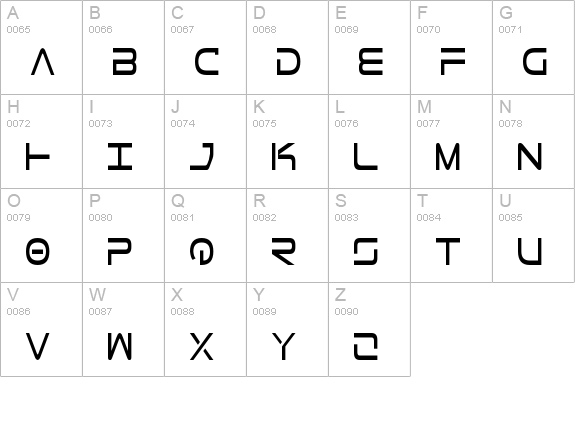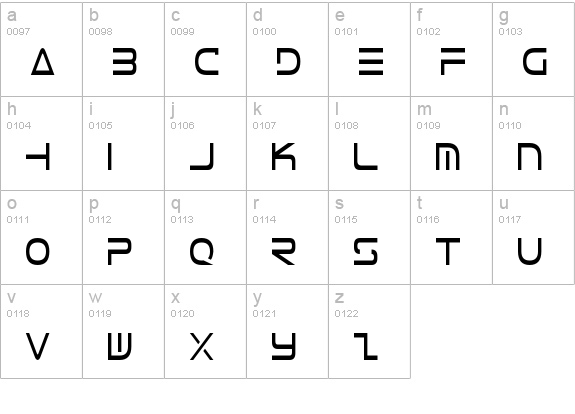
Tele-Marines Condensed is a distinctive, condensed-width variant in the Tele typeface family \xE2\x80\x94 well suited to design and typography projects.
Tele-Marines Condensed is a sleek and stylish font that brings a touch of professionalism and sophistication to any project. Its condensed design allows for maximum impact, making it perfect for headlines, titles, and logos. The clean lines and sharp edges of this font give it a modern and contemporary look that is sure to catch the eye. What sets Tele-Marines Condensed apart is that it is not only visually stunning, but it is also free to use! That's right, this amazing font is freely available to download at FontsMarket.com. Whether you are a designer, a student, or simply someone looking to add a touch of elegance to your personal projects, Tele-Marines Condensed is the perfect choice. With its wide range of characters and extensive language support, Tele-Marines Condensed is versatile and adaptable, making it suitable for a variety of design applications. Whether you need to create captivating posters, captivating social media graphics, or eye-catching packaging, this font will elevate your designs to the next level. So why wait? Download Tele-Marines Condensed for free from FontsMarket.com and start adding a touch of sophistication to your designs today. This font is not just a visual delight, but also a testament to the power of combining style and accessibility. Don't miss out on the opportunity to enhance your projects with this incredible font.